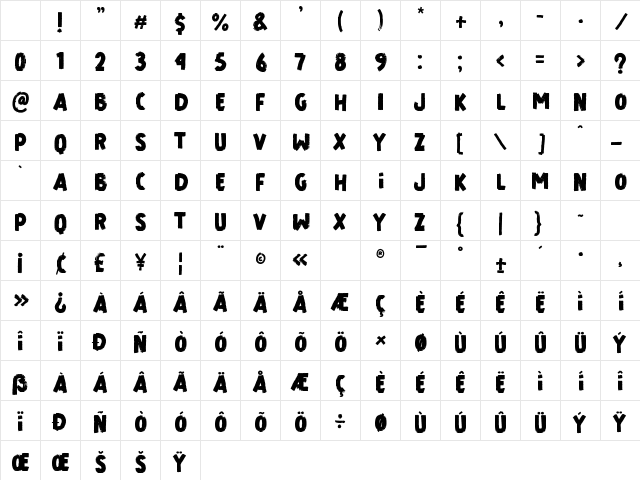
Sport Brand brings high-energy athletic personality to the page - its confident, muscular forms are built for impact.
Pro Tip: Use Sport Brand in all-caps headlines where its athletic energy can fully express itself. Pair with a solid, simple sans for supporting text.